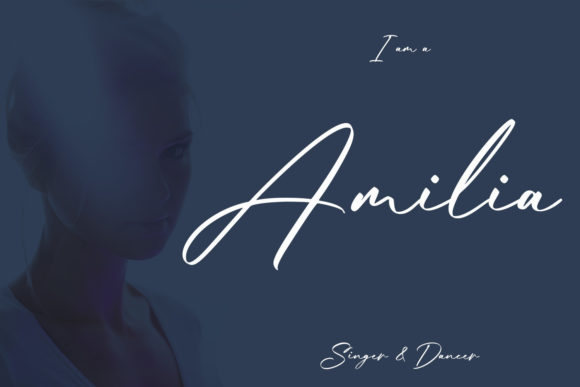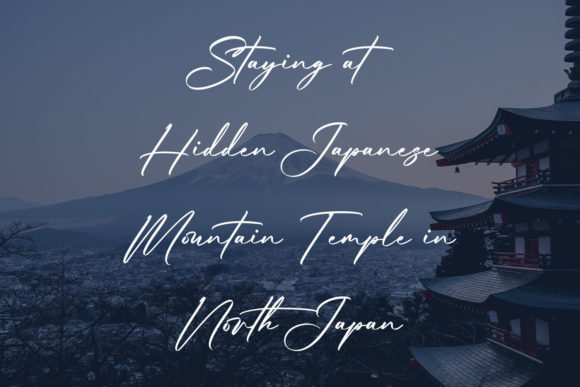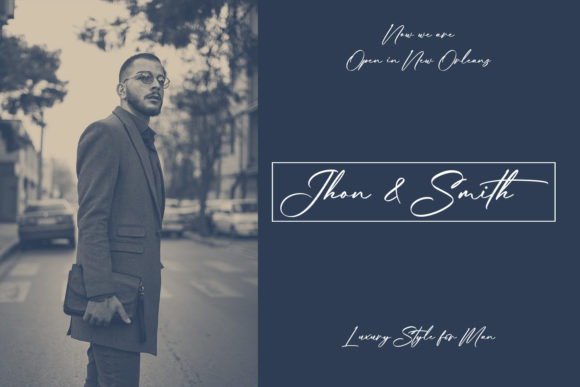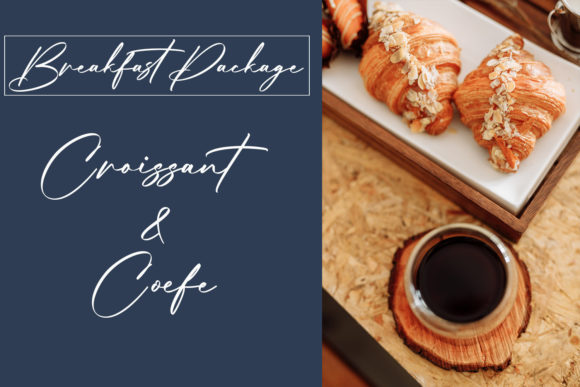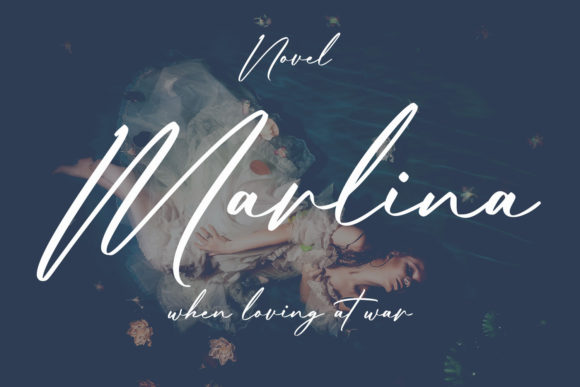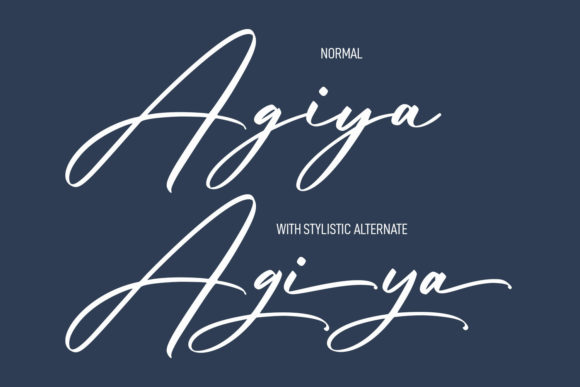
Introduction to Maistoray Font
Do you ever find yourself stuck in a creative rut, struggling to bring a design project to life? I know I have. Sometimes, all it takes is the right font to spark inspiration and elevate your work to the next level. That’s exactly what the Maistoray Font does – it adds a touch of luxury and sophistication to any design project.
As a designer, you understand the importance of having high-quality design resources at your fingertips. The Maistoray Font is a free download that’s perfect for any creative project, from elegant invitations to sophisticated branding materials. With its unique, flowing script style, this font is sure to make a lasting impression. Plus, its transparent background makes it easy to layer and combine with other design elements.
Whether you’re a seasoned pro or just starting out, the Maistoray Font is a valuable addition to any designer’s toolkit. So why not give it a try and see the difference it can make in your next design project?
Key Features of Maistoray Font
- High-quality, professional design suitable for creative projects and commercial use.
- Transparent background, allowing for easy customization and seamless integration with various designs.
- Font size: scalable, allowing for use in various contexts, from small text to large headings.
- Resolution: suitable for print and digital use, with clear and crisp text at 300 DPI (dots per inch).
- Unique, hand-drawn style with a mix of elegant and modern elements, making it perfect for creative projects that require a touch of sophistication.
Honest Review: Maistoray Font
I recently stumbled upon the Maistoray Font and I must say, it’s a great addition to any designer’s toolkit. One of the things I love about this font is its high quality design, which makes it perfect for creative projects that require a sophisticated look.
- High quality design that’s perfect for creative projects
- Wide range of applications, from logos to brochures
- May not be suitable for very small text sizes due to its ornate design
- Limited character set compared to other fonts
Overall, I’m impressed with the Maistoray Font and would definitely recommend it to designers looking for a high-quality, free design resource. Its unique design and transparent background make it an excellent choice for creative projects.
Tips for Getting the Most Out of Maistoray Font
To get the most out of Maistoray Font, use it on a transparent background to create a clean and modern design. You can also experiment with different font sizes, colors, and styles to find the perfect look for your project.
Common Use Cases for Maistoray Font
Maistoray Font is perfect for a variety of design projects, including business cards, brochures, and social media graphics. Its high-quality design and transparent background make it a valuable design resource for any creative project.